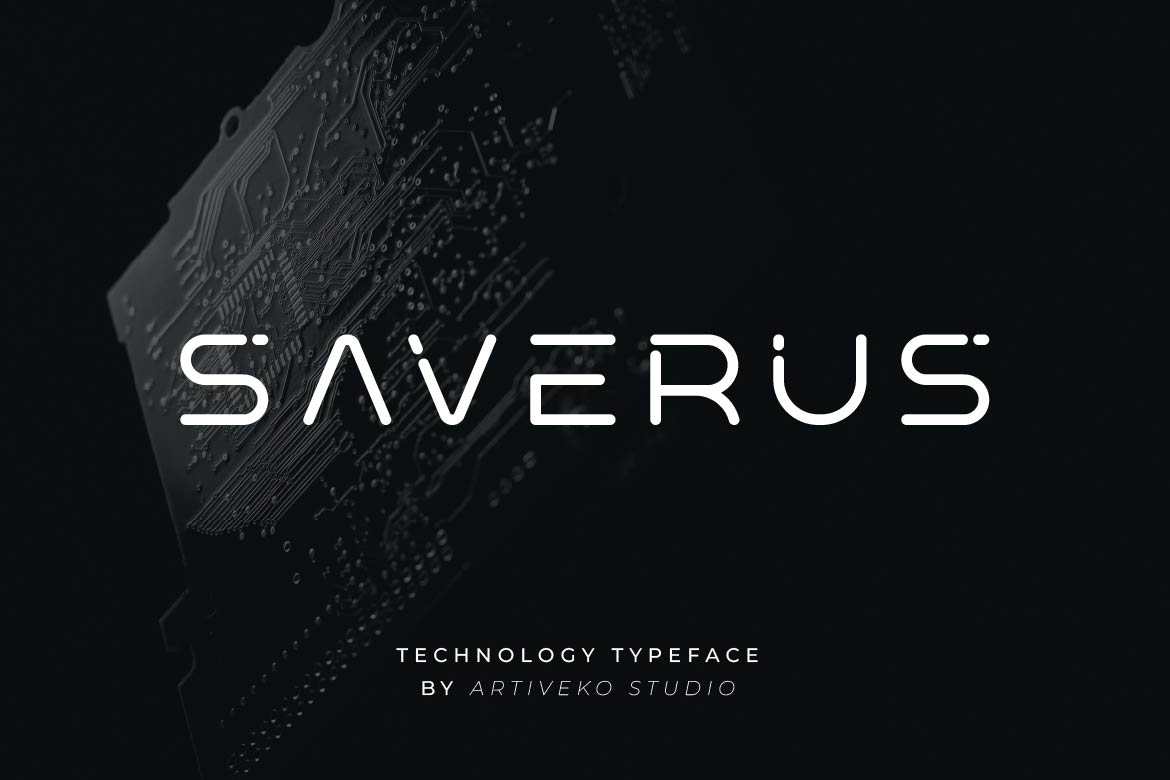
- Saverus – Minimal Geometric Typeface
Saverus is a geometric sans serif typeface crafted for modern brands that value clarity, precision, and timeless design. Built on clean geometric forms and balanced proportions, Saverus delivers a refined visual language that feels both professional and contemporary.
Perfect for logos, branding systems, visual identities, websites, UI/UX design, packaging, editorial layouts, and corporate communications, Saverus offers exceptional versatility across print and digital media. Its minimalist construction ensures excellent readability while giving every project a confident and sophisticated appearance.
Whether you’re building a startup identity, refreshing a corporate brand, or designing a premium digital product, Saverus provides a clean typographic foundation that remains relevant for years to come.
Saverus isn’t just a typeface—it’s a geometric foundation for brands built to last.